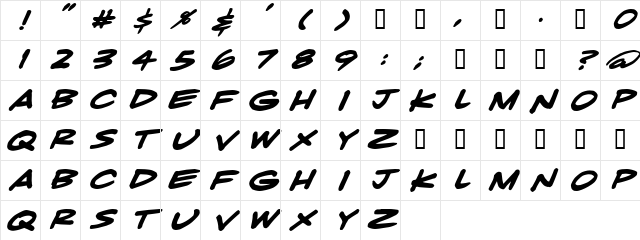
Complete LHF Comic Caps BETA Regular glyph index. Displaying only characters natively supported by LHF Comic Caps BETA Regular font.
LHF Comic Caps BETA has an approachable, lighthearted character - its loose, expressive forms are well-suited to children's content, casual branding, and fun-first design.
Font Pairing: Pairs well with a rounded or humanist sans for body copy, maintaining the friendly tone without relying on LHF Comic Caps BETA to carry extended reading.
Pro Tip: Use LHF Comic Caps BETA at larger display sizes where its expressive character can land. Pair with a clean, simple sans for body copy to maintain readability.